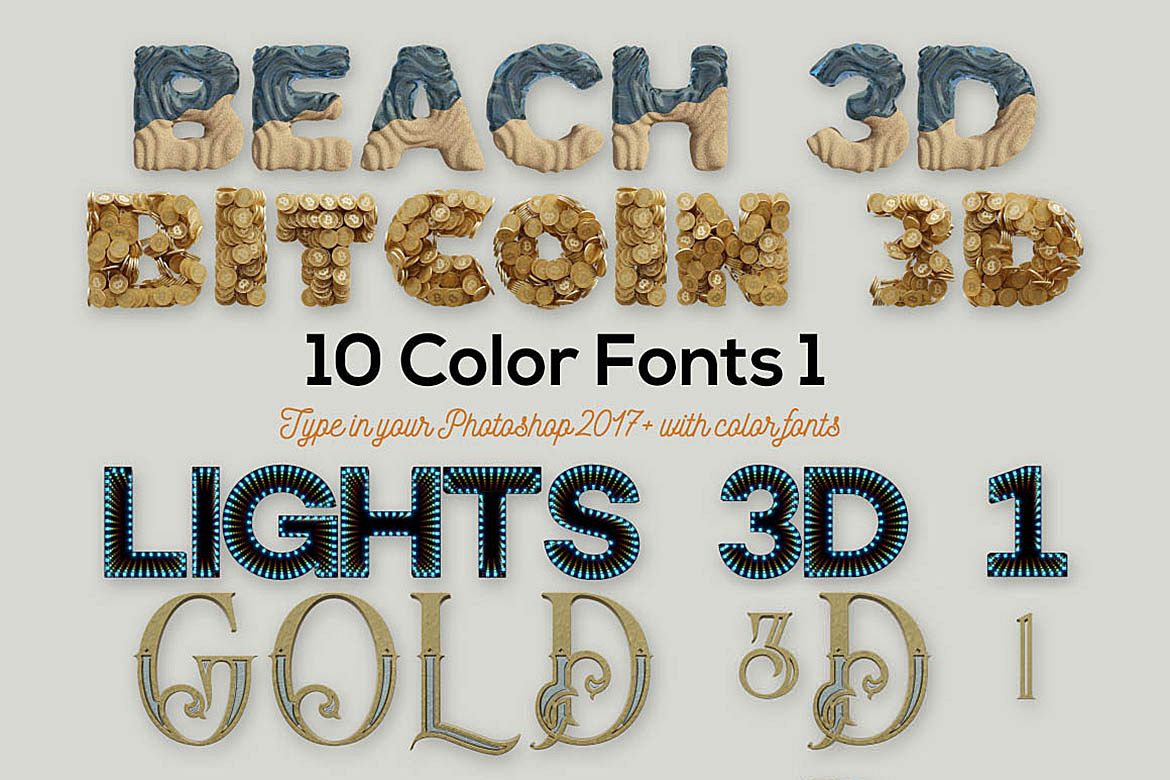
10 Color SVG Fonts 1
10 color SVG fonts for your new creative projects. Enjoy ????Color fonts are pretty new technology – they currently show up in Photoshop CC 2017+, Illustrator CC 2018 and some Mac apps. Learn more about color font support on third-party apps here: https://www.colorfonts.wtf/
• Wide variety of uses
• Unique additions for your display fonts toolbox!